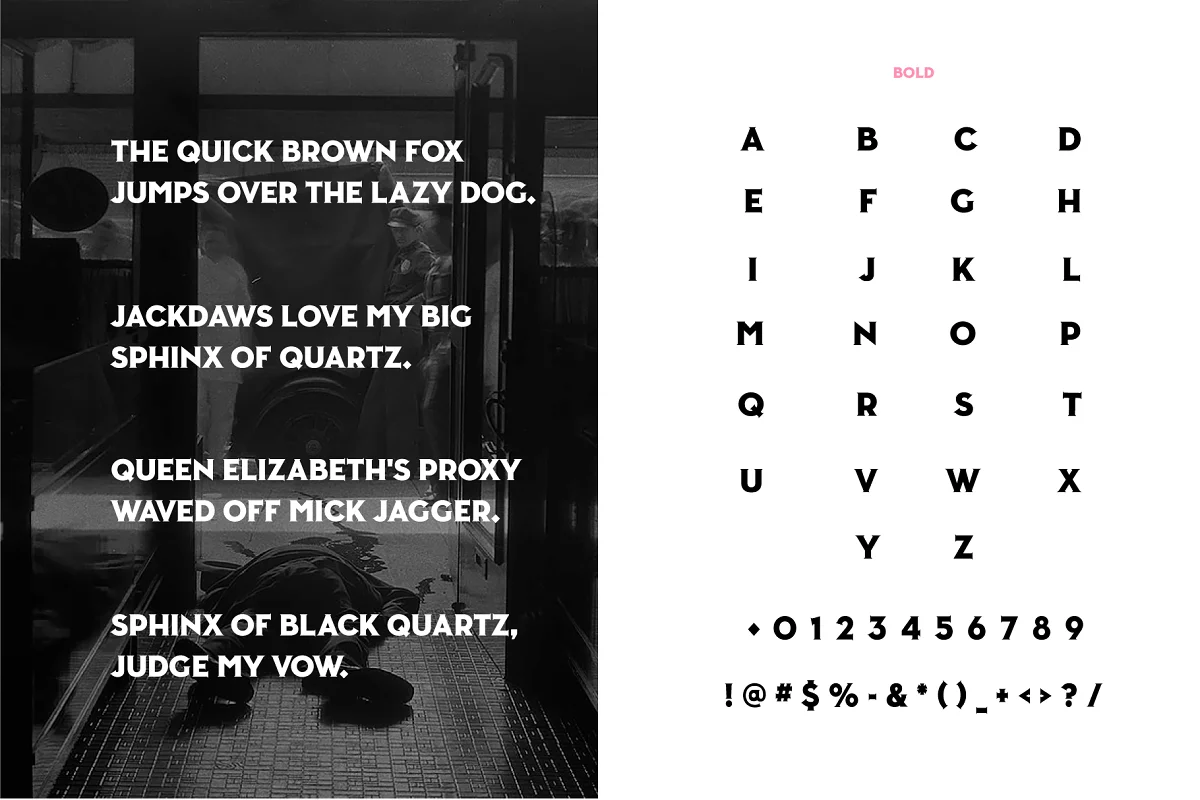
About the Amscray Font
Amscray is a heavyweight all-caps duo (Bold and Ultra) punctuated by triangular serifs.
This was made as a departure from all of the rounded typefaces that I’ve been making as of late. Great for titles, headlines, and heavy display uses.